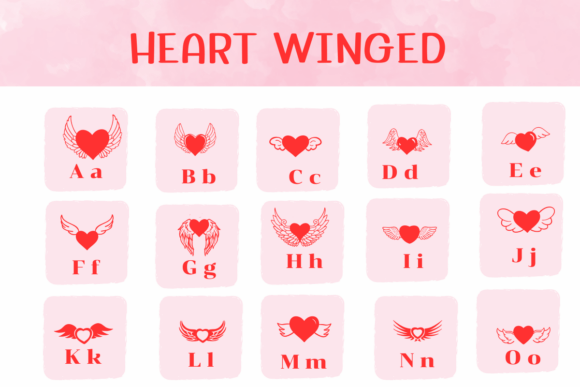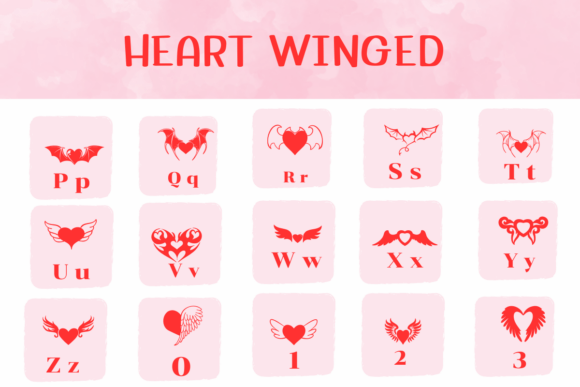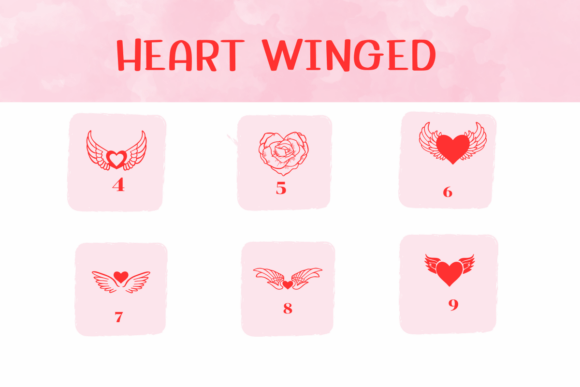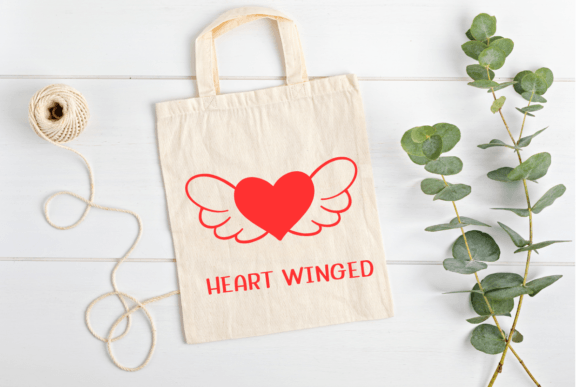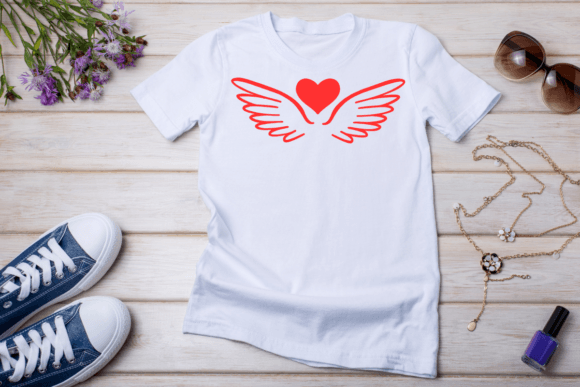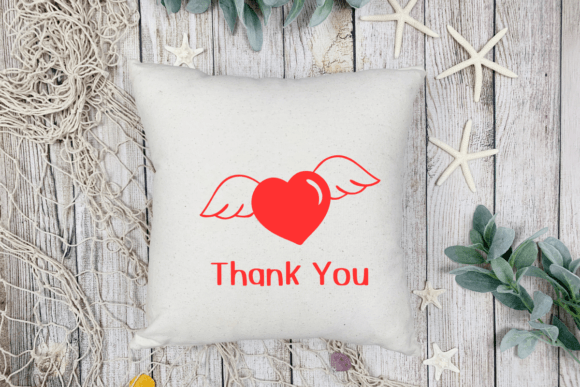
Love at First Sight: Discovering the Heart Winged Font
You know that moment when inspiration strikes and you envision the perfect design for your wedding invitation, or a handmade gift for a loved one? The creative spark that sets your imagination ablaze, and you can’t wait to bring your idea to life? For designers and crafty individuals, the search for the perfect font is a crucial part of this process.
Enter the Heart Winged Font, a beautiful dingbats font that captures the essence of romance and love. This enchanting font is designed to add a touch of whimsy and elegance to your creative projects, from wedding invitations and DIY crafts to decorations and logos. With its delicate, winged hearts and intricate details, the Heart Winged Font is a valuable asset for any designer looking to infuse their work with a sense of love and passion.
Key Features of “Heart Winged Font”
- Font Family: Heart Winged Font is a unique, custom-designed font family that includes various styles and weights.
- Unique Characteristics: Features a distinctive, wing-like design element that adds a touch of whimsy and personality to text, making it ideal for creative projects and branding.
Heart Winged Font Review
When I first saw the Heart Winged Font, I was immediately drawn to its whimsical and playful nature. ✨ The delicate, wing-like details add a touch of romance and elegance, making it perfect for designs that require a soft, feminine feel. ✨
One of the things that works well in this font is its versatility. It can be used for a wide range of applications, from wedding invitations to children’s book illustrations. ✨ The font also comes in multiple weights and styles, making it easy to mix and match to achieve the desired look. ✨
While the Heart Winged Font is a beautiful and unique addition to any design project, there are some limitations to consider.
- ⚠️ The font may not be suitable for designs that require a bold or dramatic look, as its delicate nature may get lost in more complex compositions.
Overall, I would say that the Heart Winged Font is a lovely addition to any designer’s toolkit. While it may have some limitations, its unique charm and versatility make it a great choice for designers who want to add a touch of whimsy to their projects.
For the most effective use of Heart Winged Font, use it sparingly and in contexts that require a touch of whimsy and romance, such as:
– Valentine’s Day cards and gift tags
– Children’s book illustrations and designs
Alternatives to Heart Winged Font
Great Vibes is a modern calligraphy font that features elegant, flowing lines. It’s ideal for use in branding, packaging, and wedding invitations. Great Vibes has a similar whimsical feel to Heart Winged Font, but with a more refined and sophisticated look.
Pacifico is a beautiful, cursive script font that evokes a sense of relaxation and calmness. It’s perfect for use in beach-themed designs, travel brochures, and spa promotions. Pacifico has a more laid-back feel than Heart Winged Font, but shares a similar sense of playfulness.
Carolyna Pro is a modern script font that features bold, expressive lines. It’s ideal for use in fashion branding, advertising, and social media graphics. Carolyna Pro has a more dramatic feel than Heart Winged Font, but shares a similar sense of energy and dynamism.
Dancing Script is a fun, cursive script font that’s perfect for use in creative projects, such as posters, flyers, and social media graphics. It’s similar to Heart Winged Font in terms of its playful, whimsical feel, but has a more carefree and spontaneous vibe.